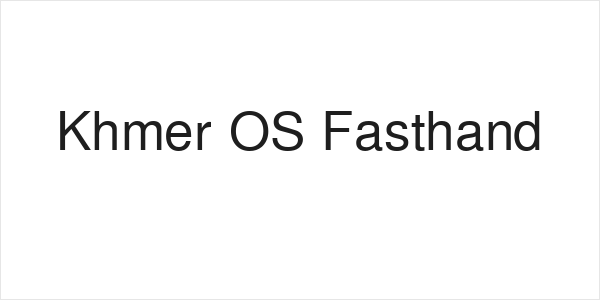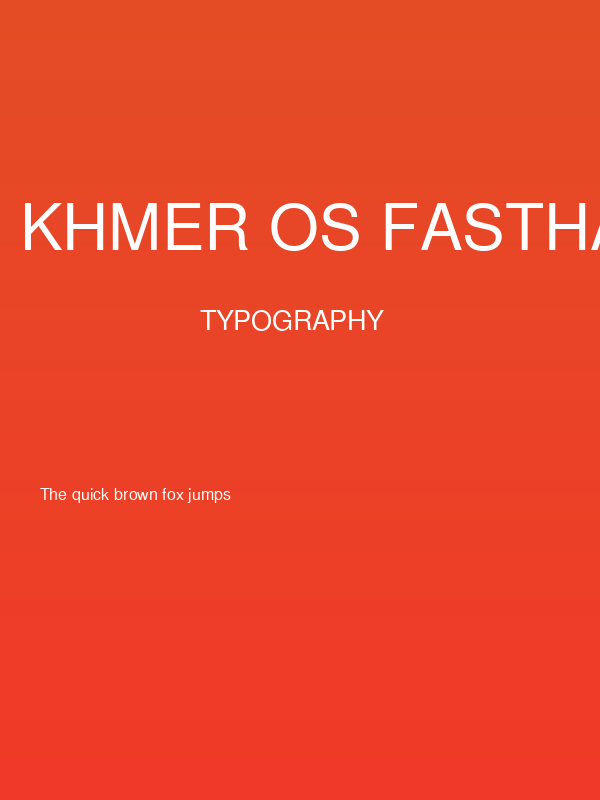
Khmer OS Fasthand Font
Khmer OS Fasthand Description
This font features a clean and modern sans-serif style with a straightforward and legible appearance. The characters are well-proportioned, with consistent stroke widths that provide a balanced and harmonious look. The uppercase letters are bold and assertive, while the lowercase letters maintain a friendly and approachable feel. The numerals are clear and easy to read, making them suitable for various applications. Special characters are included, offering versatility for different design needs. The overall design is minimalistic, making it ideal for contemporary projects.
| Proposed Projects | Ideal for digital interfaces, branding, advertising, and editorial design. |